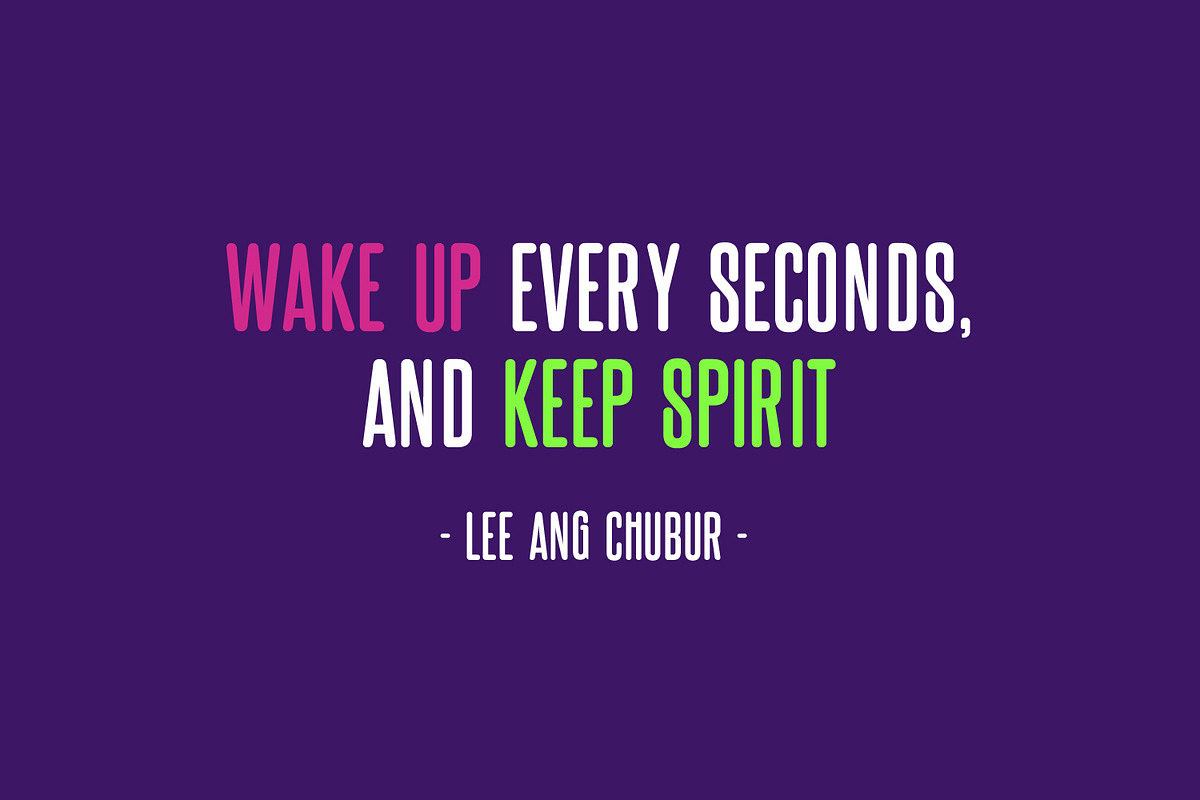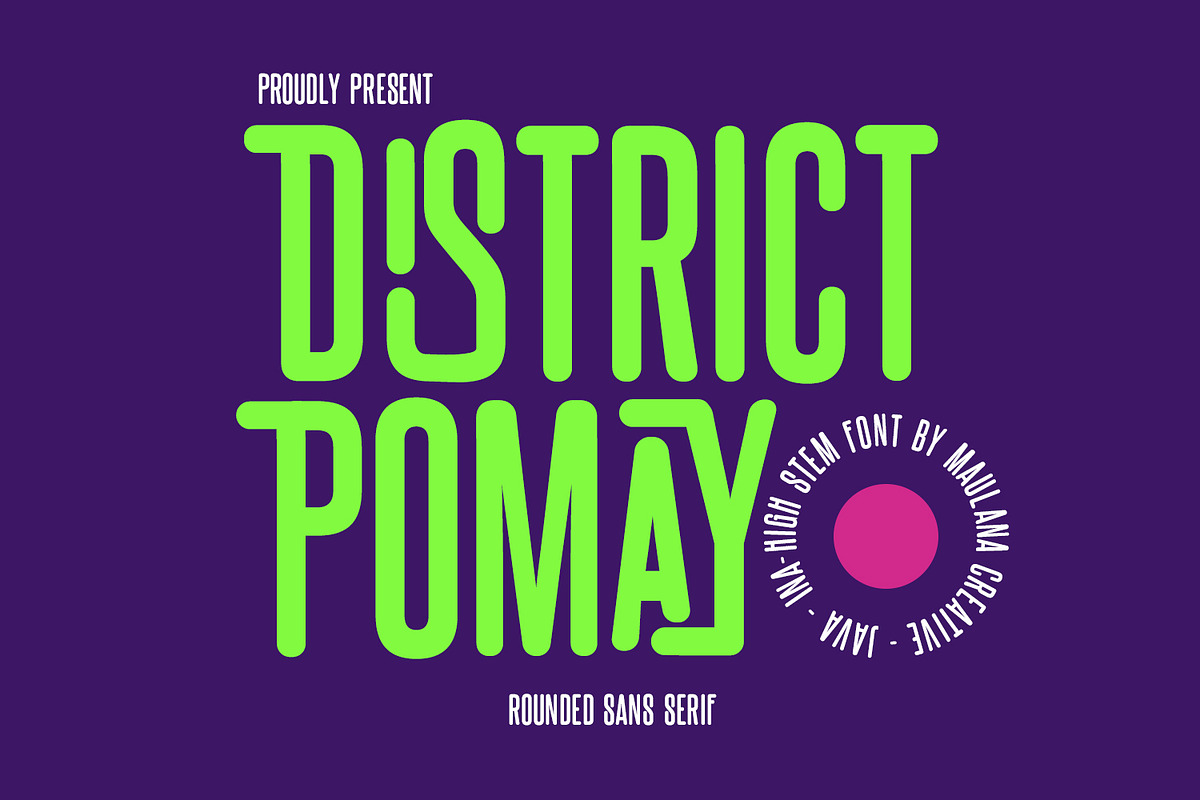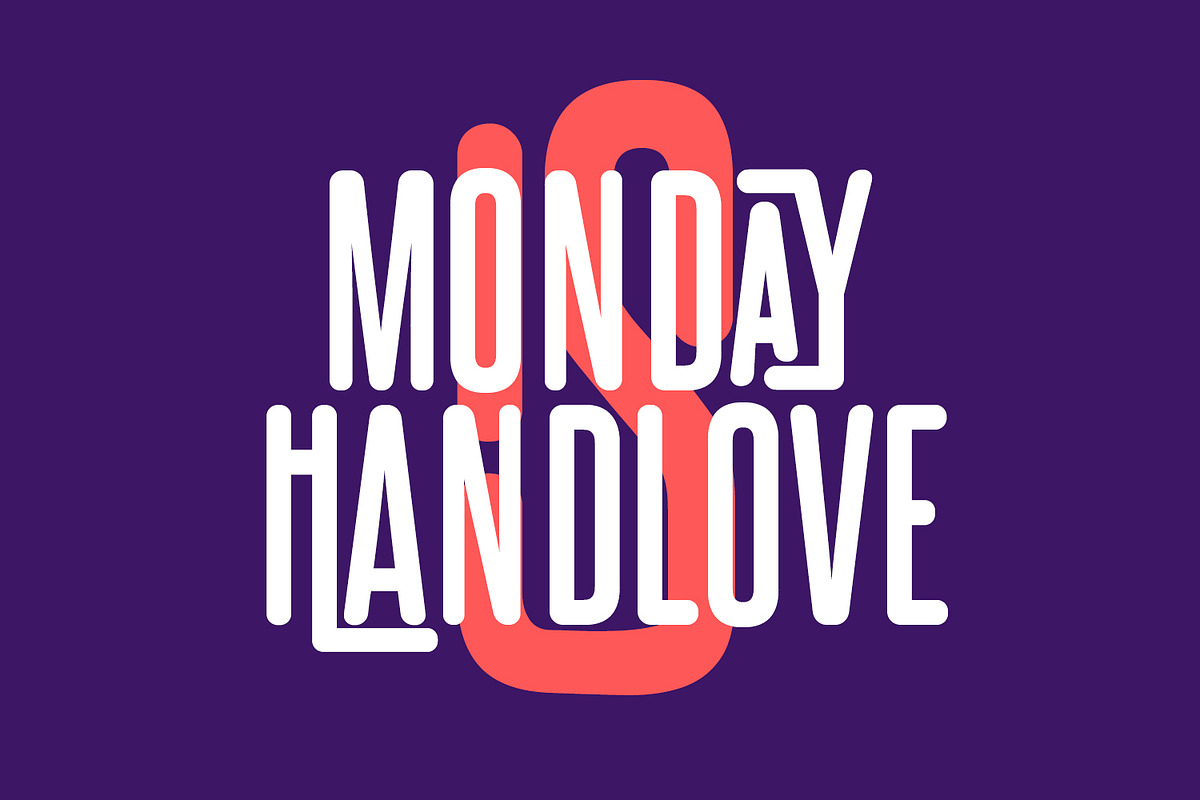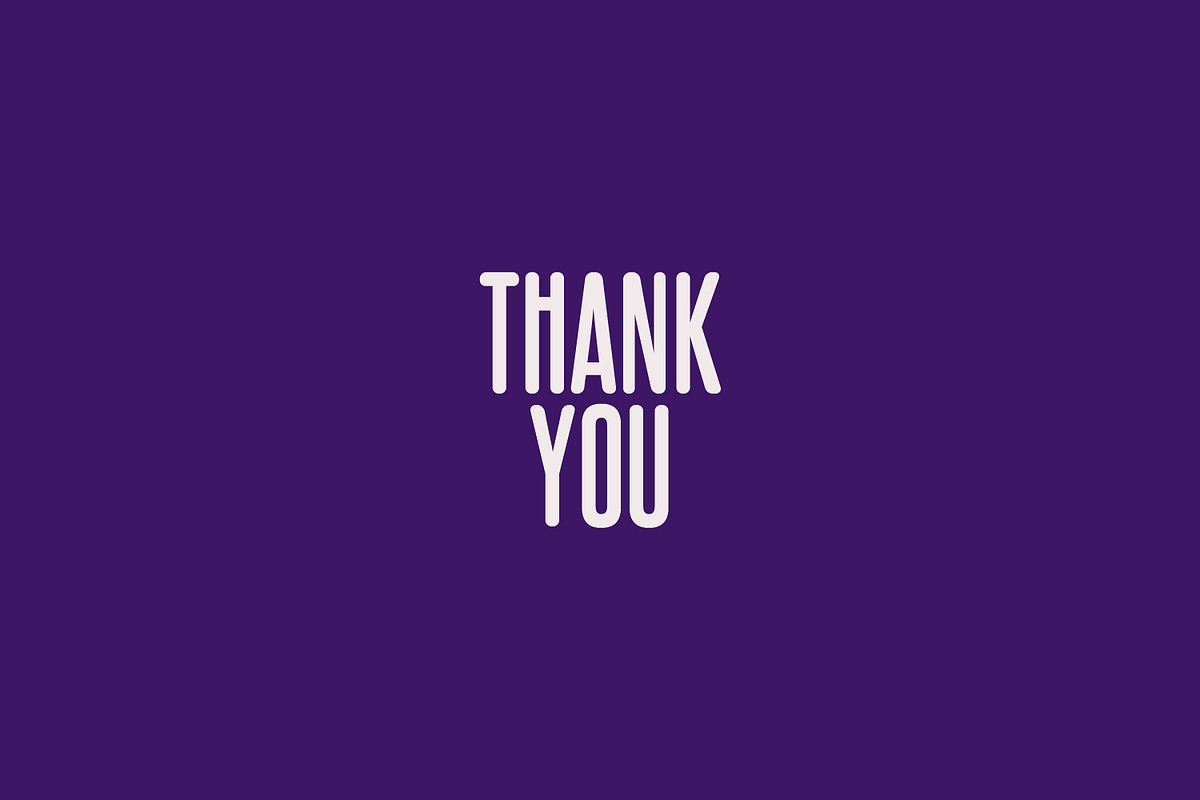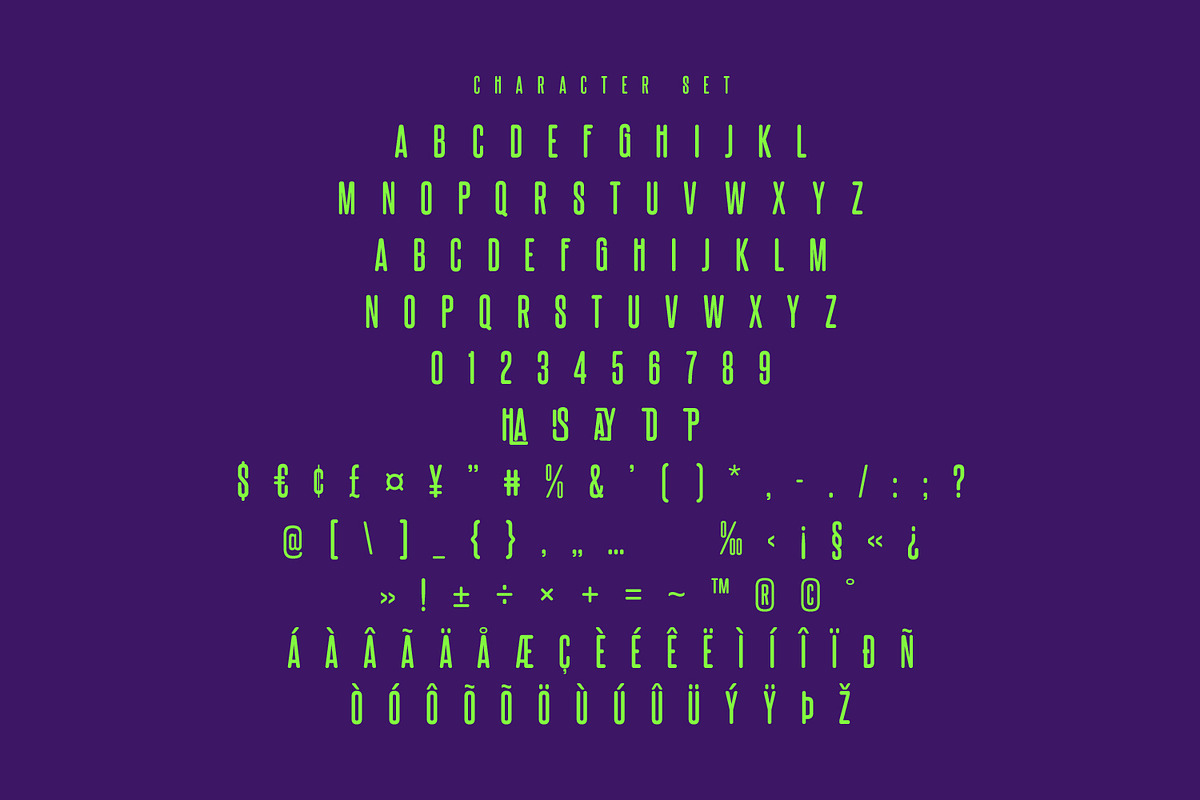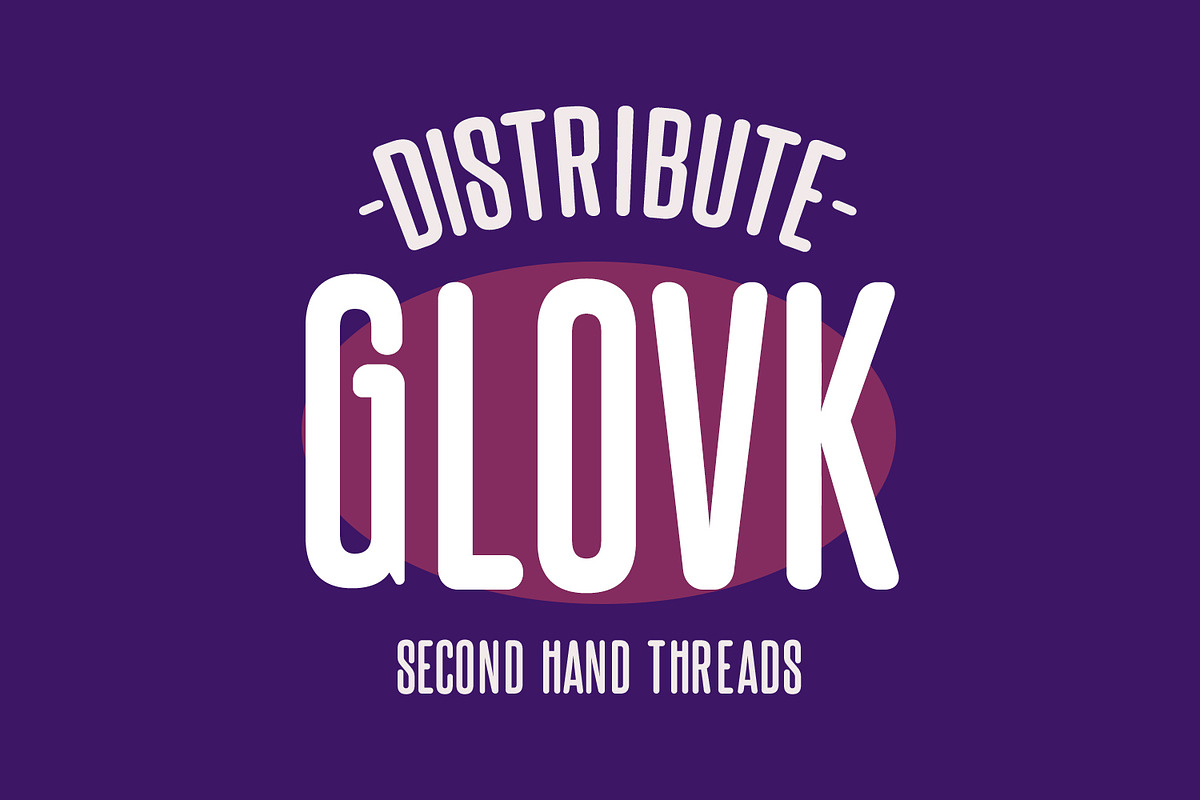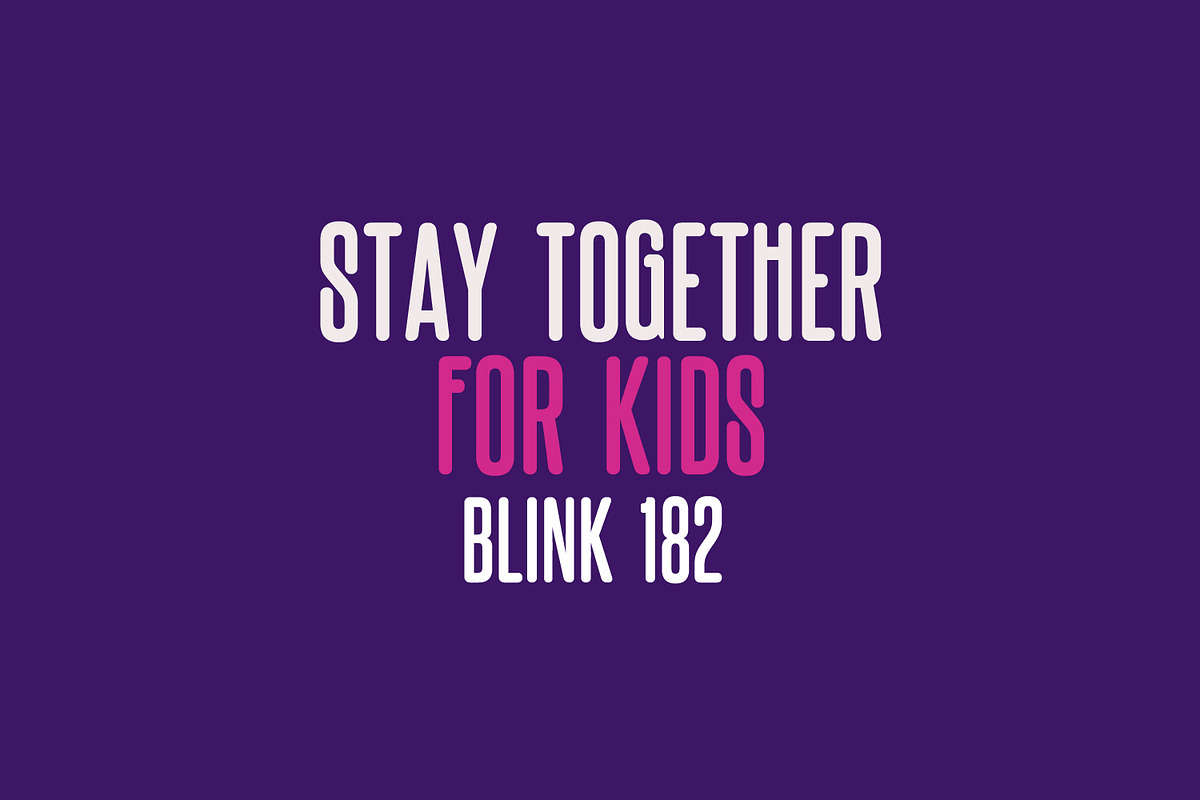
District Pomay Rounded Sans Serif
District Pomay is a fancy rounded modern sans serif font. With bold tall and rounded stroke, fun character with a bit of ligatures and alternates. To give you an extra creative work. District Pomay font support multilingual more than 100+ language. This font is good for logo design, Social media, Movie Titles, Books Titles, a short text even a long text letter and good for your secondary text font with sans or serif. Make a stunning work with District Pomay.